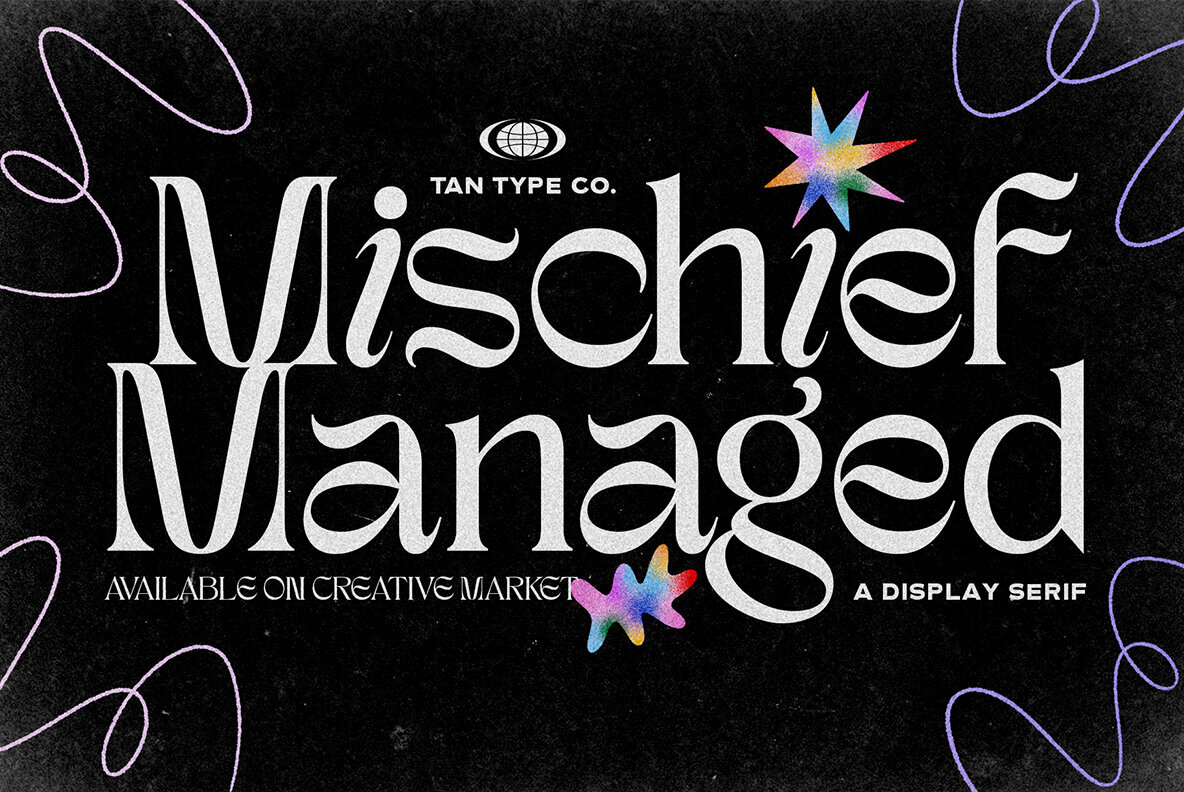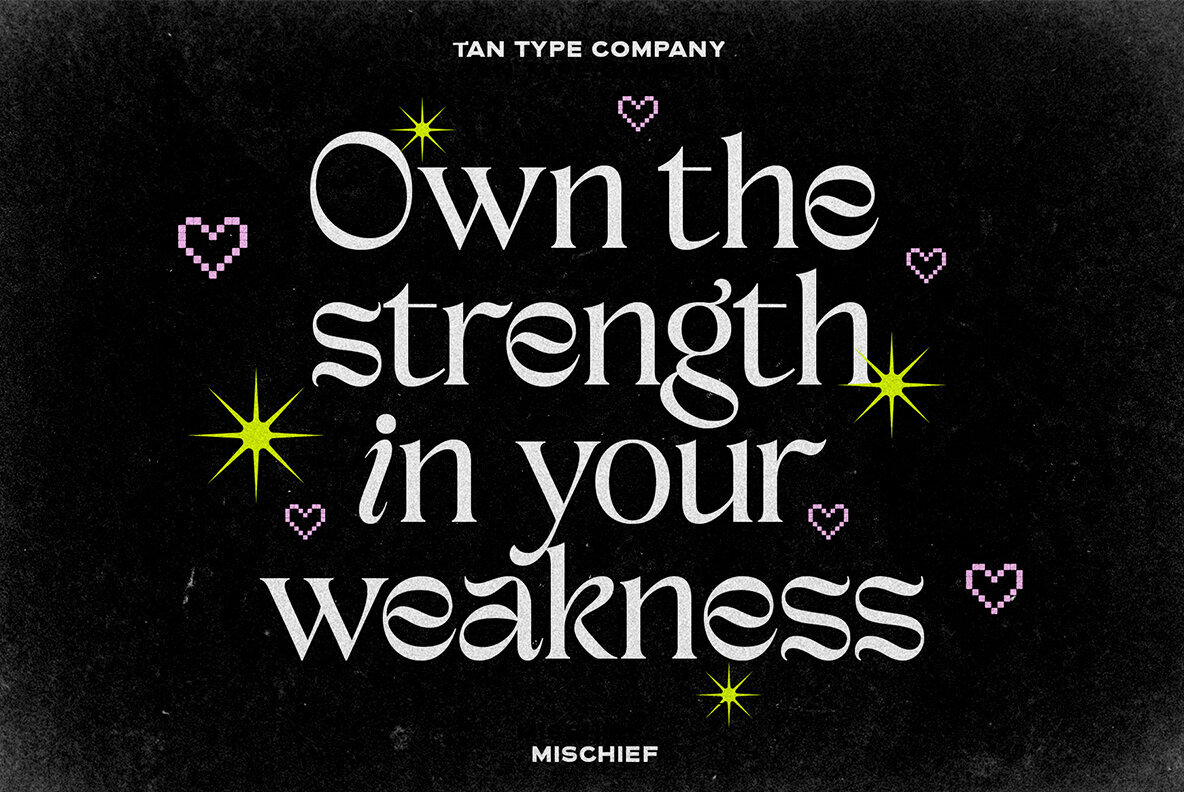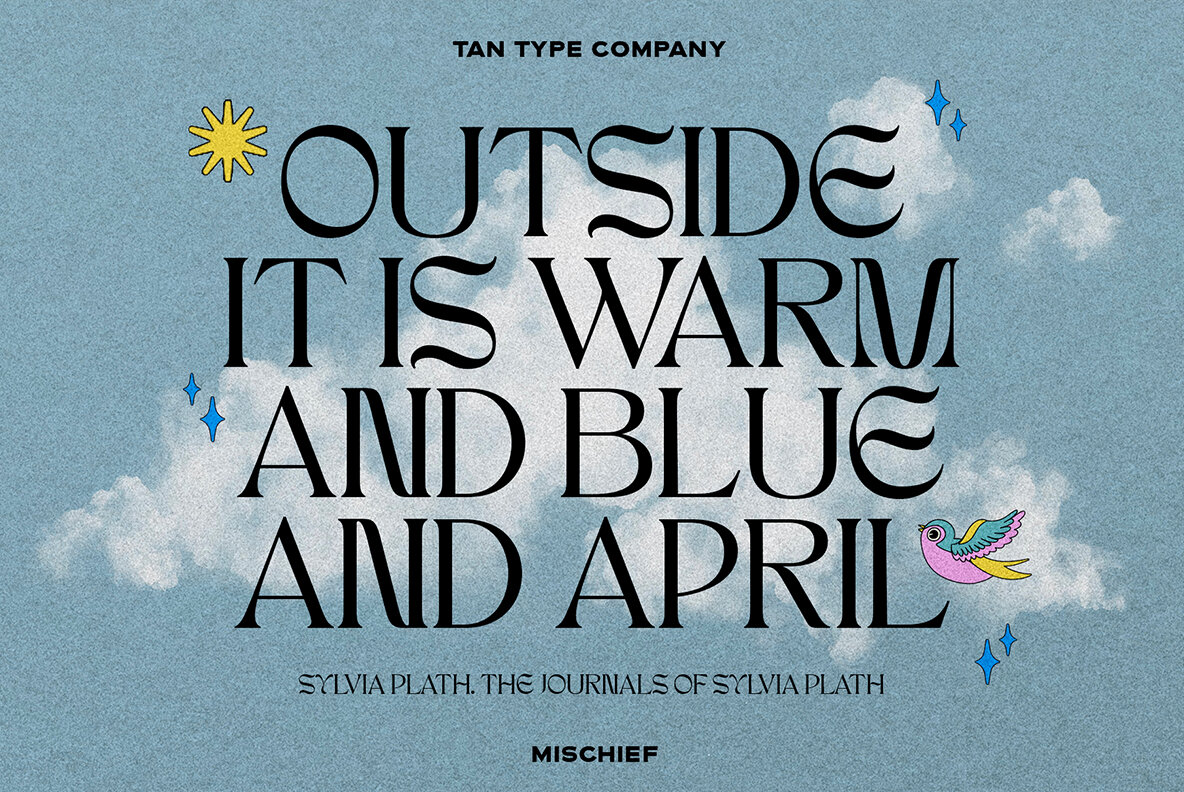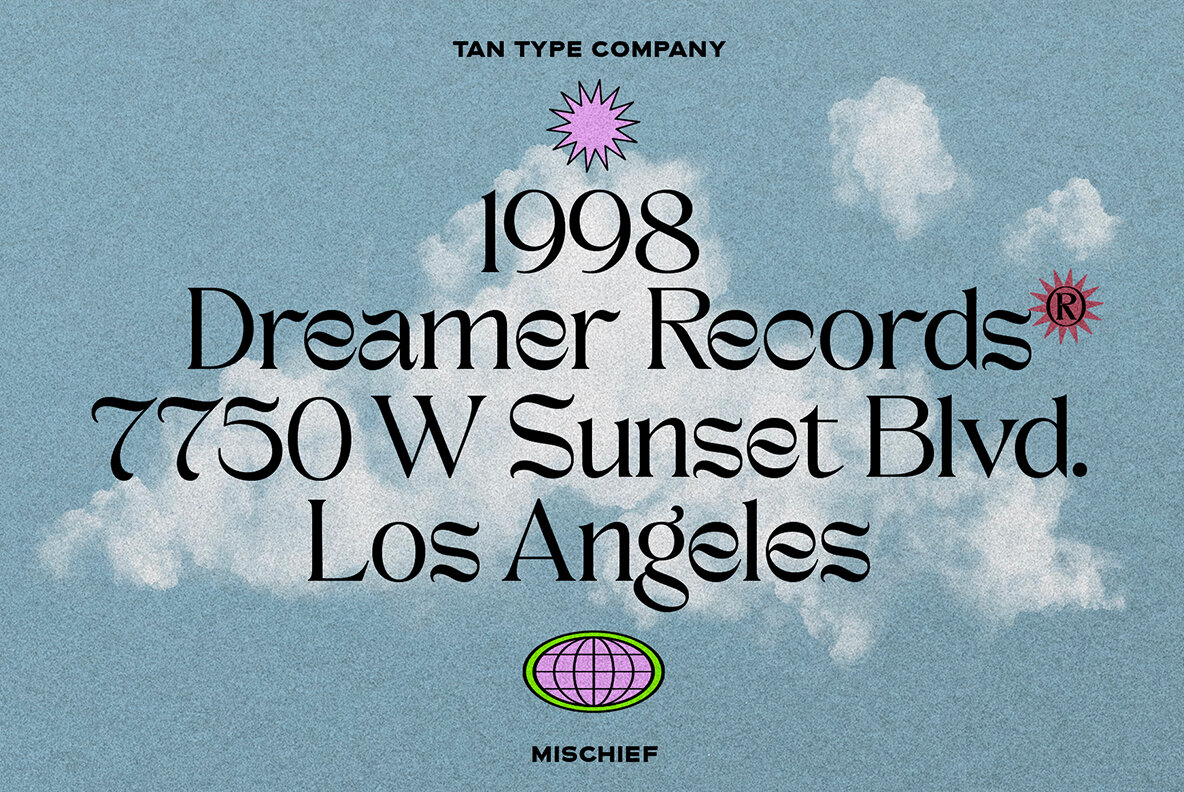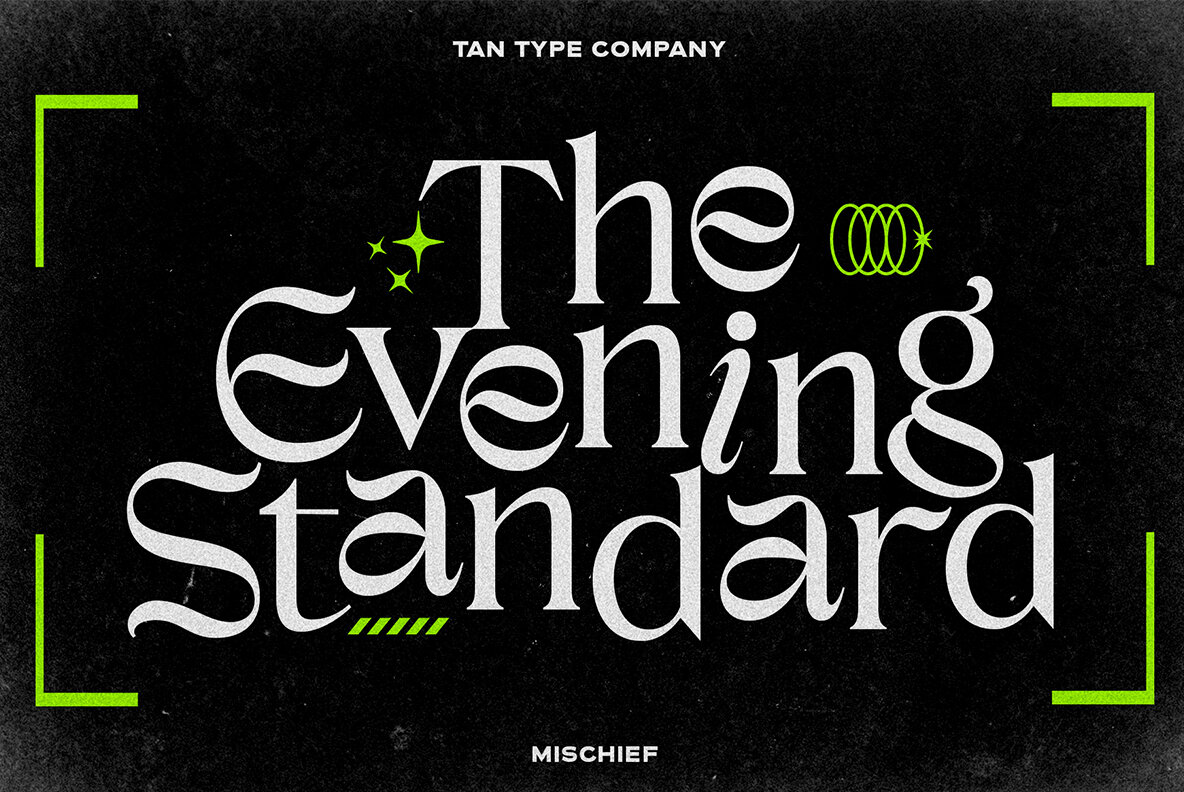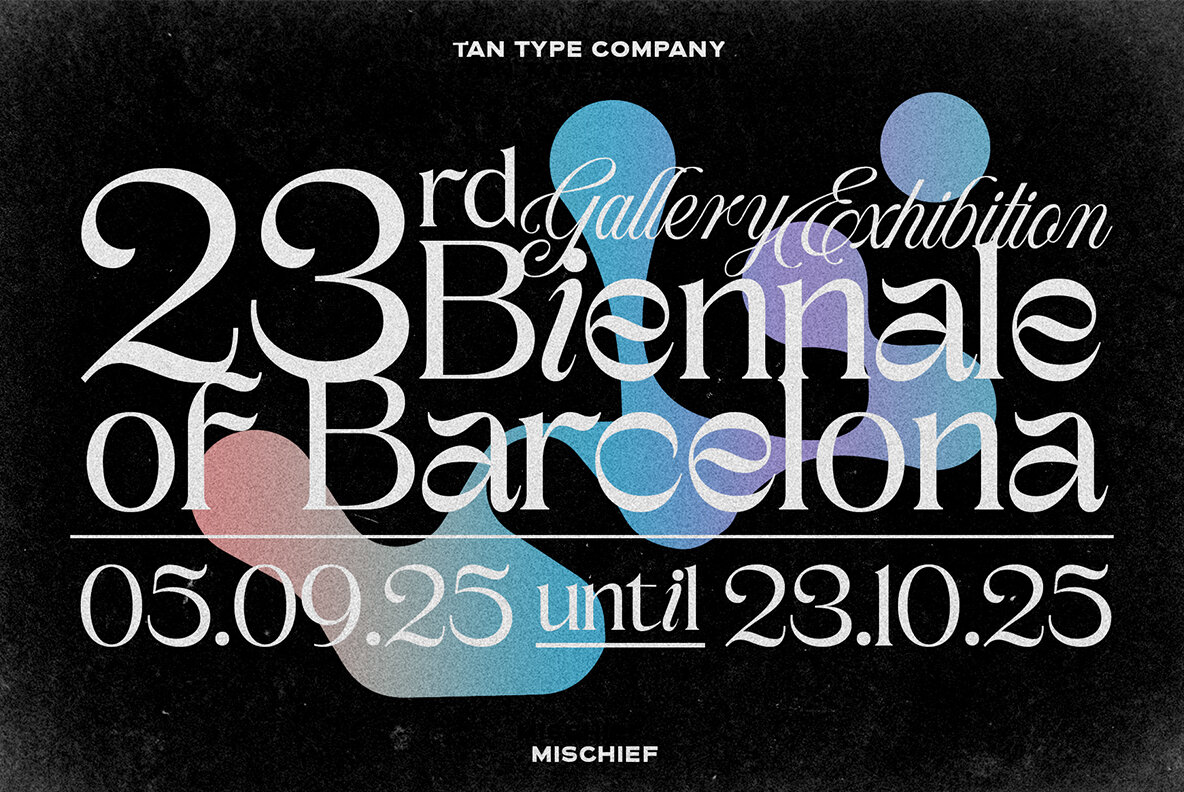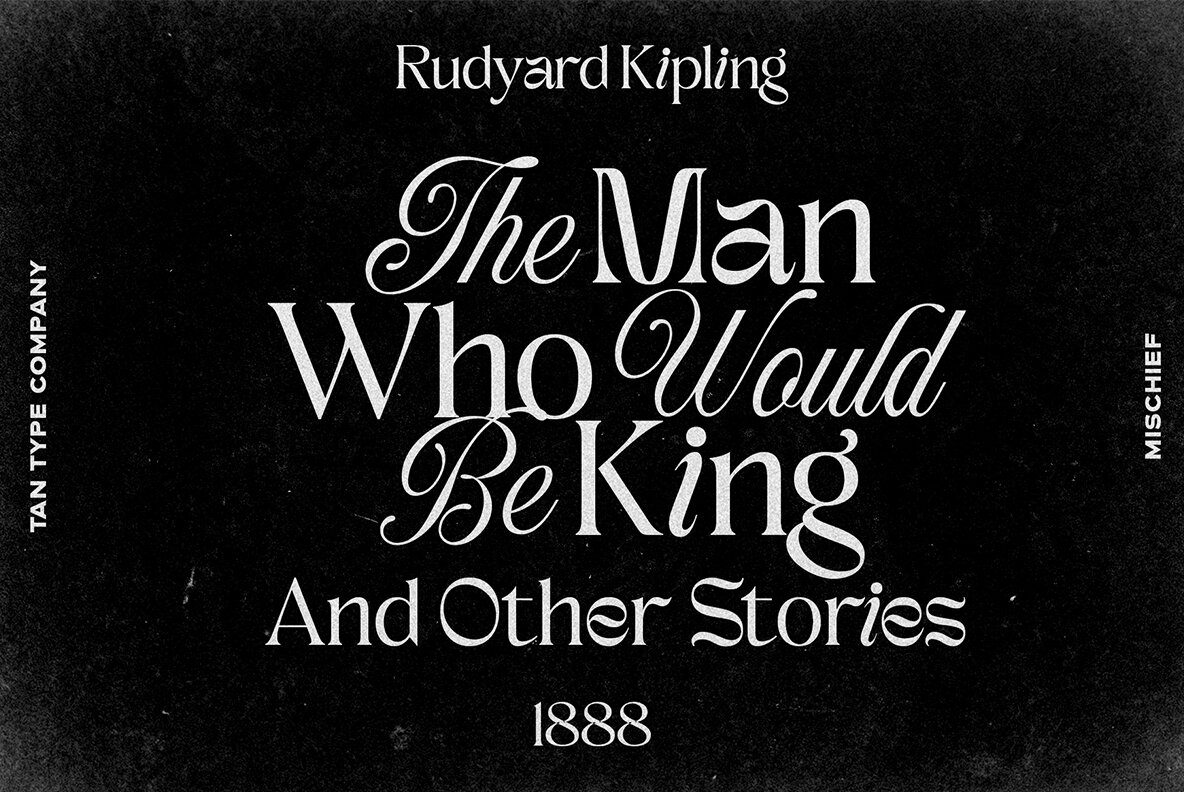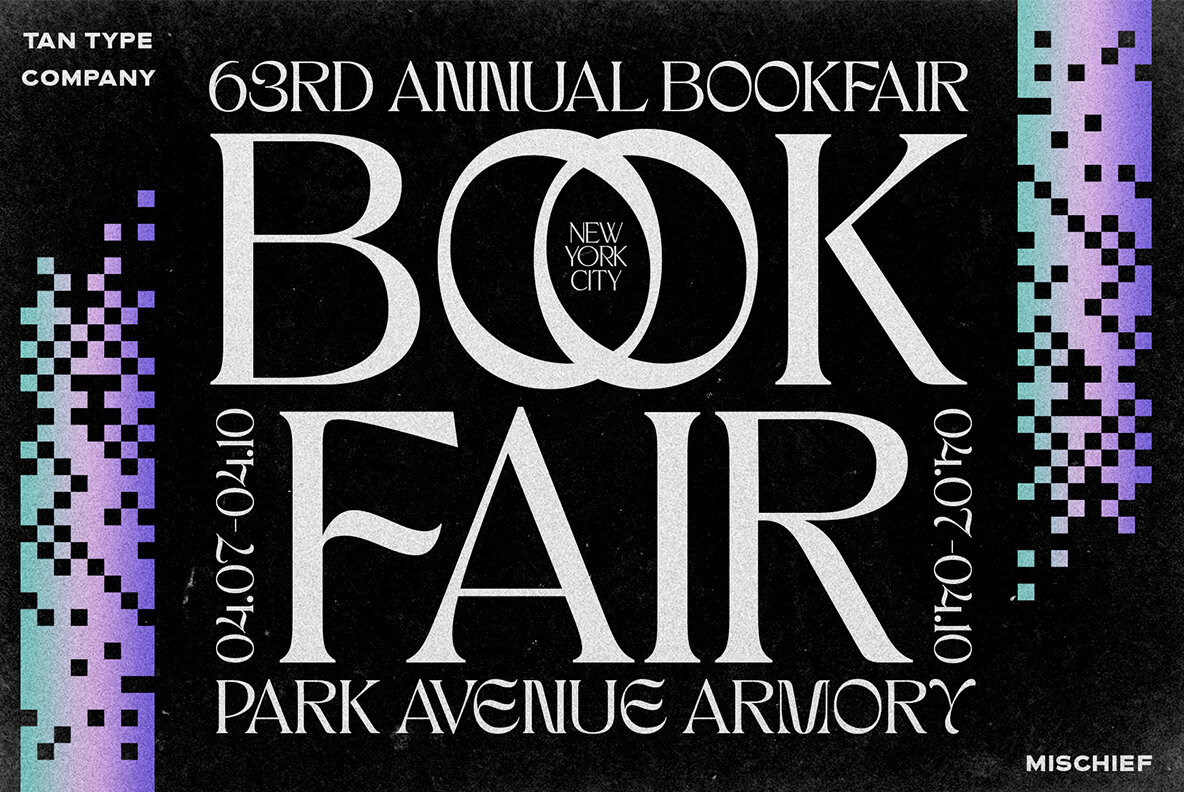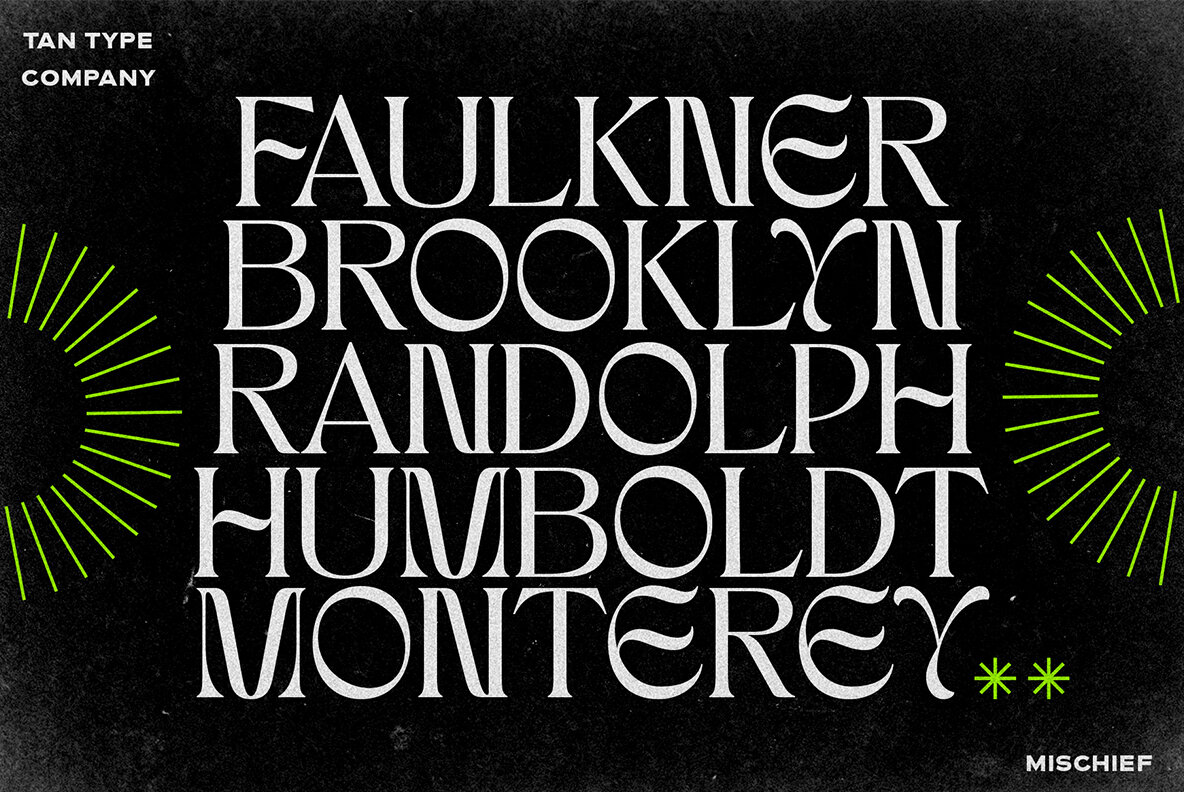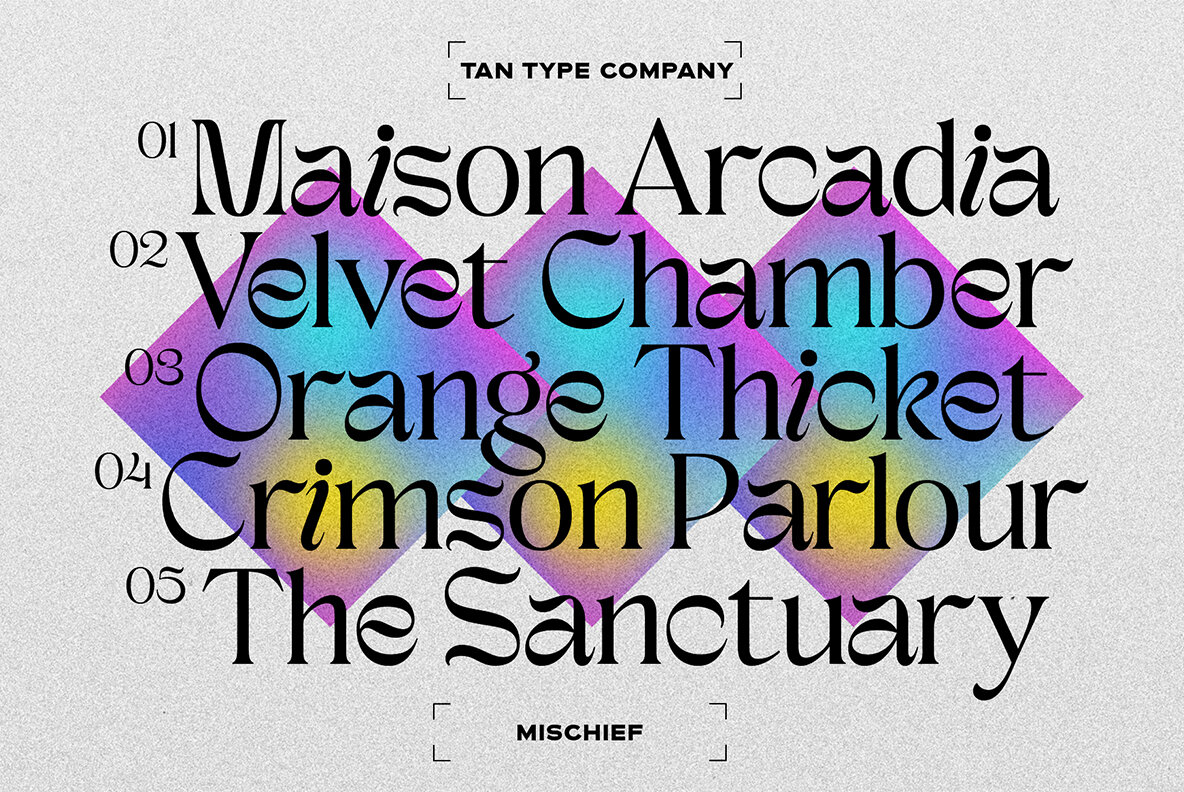
TAN MISCHIEF Font
TAN MISCHIEF Regular
TAN - MISCHIEF is a typeface that exudes a sense of nostalgia while breaking the mold with its playful twists. This font takes timeless shapes and infuses them with unexpected curves and details, creating a look that is both stylish and relaxed. It's the perfect choice for projects that require a balance of polish and fun, adding character without being overwhelming.TAN - MISCHIEF: Classic Typeface With a Playful Twist